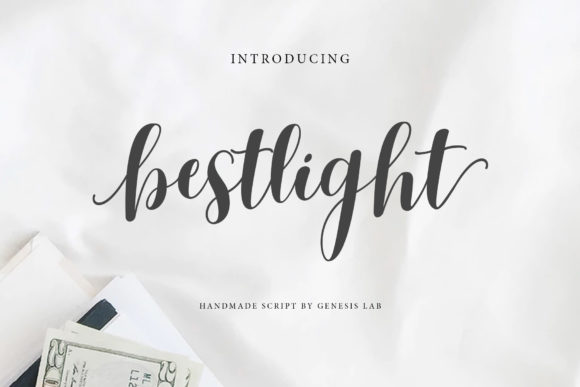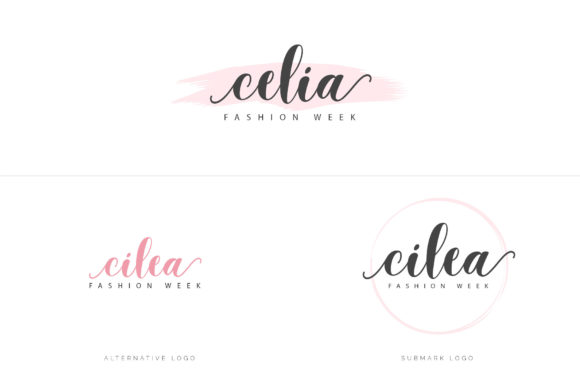
Bestlight Font
Bestlight is a stunning handwritten font made with a sharp hand and a lovely sense of style. This font looks trendy, natural, and gentle, and it can beautifully highlight your best party celebrations, wedding invitations, graduation designs, meeting materials, etc.